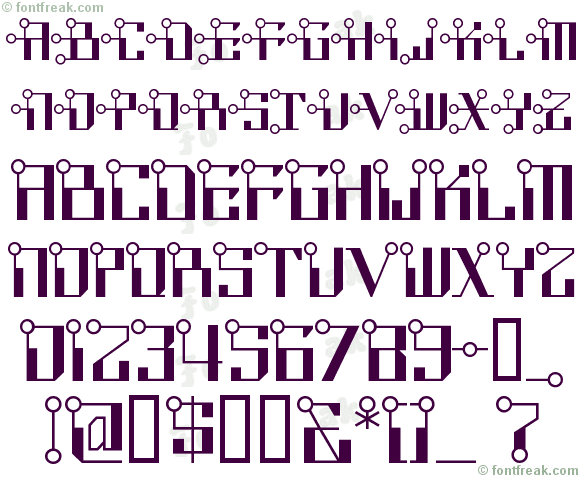
CircuitBoredNF
About Circuit Bored NF
Circuit Bored NF is a captivating display font designed by Nick Curtis, characterized by its unique blend of geometric and circuit-inspired aesthetics. As a decorative typeface, it offers a modern, tech-savvy look that makes it ideal for various creative projects. The font features a distinctive stroke weight that is consistent throughout, giving it a bold presence while maintaining legibility. Its clean lines and sharp angles evoke a sense of precision, reminiscent of electronic circuit designs. The ample spacing between characters enhances readability, making it suitable for both headlines and body text, depending on your design needs.
This font shines in applications such as technology-themed marketing materials, product packaging for electronics, and graphic design projects that aim to convey innovation. It is particularly effective for use in event posters, especially those that focus on robotics or gaming, where a futuristic vibe is desired. Additionally, Circuit Bored NF can elevate branding for small tech startups seeking to establish a distinct identity in their industry. Graphic designers and content creators will find this font invaluable for creating eye-catching social media graphics, website headers, and promotional materials that stand out in a crowded marketplace.
What sets Circuit Bored NF apart is its ability to blend a playful spirit with a polished and professional appearance. This makes it a versatile choice for a wide range of projects, appealing to both artistic and commercial sensibilities. Whether you are designing a modern flyer or crafting an engaging presentation, the Circuit Bored NF font free download offers a fresh option that enhances visual storytelling. Its unique design elements ensure that your work not only captures attention but also leaves a lasting impression.